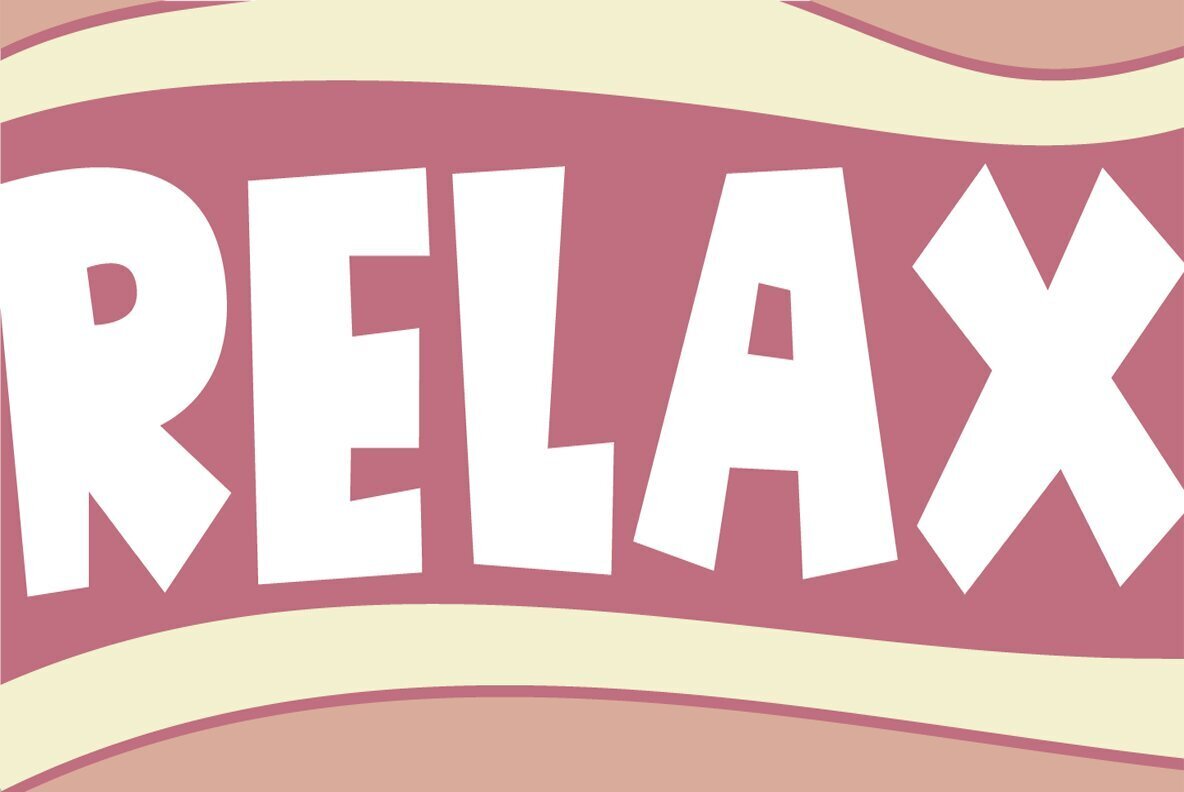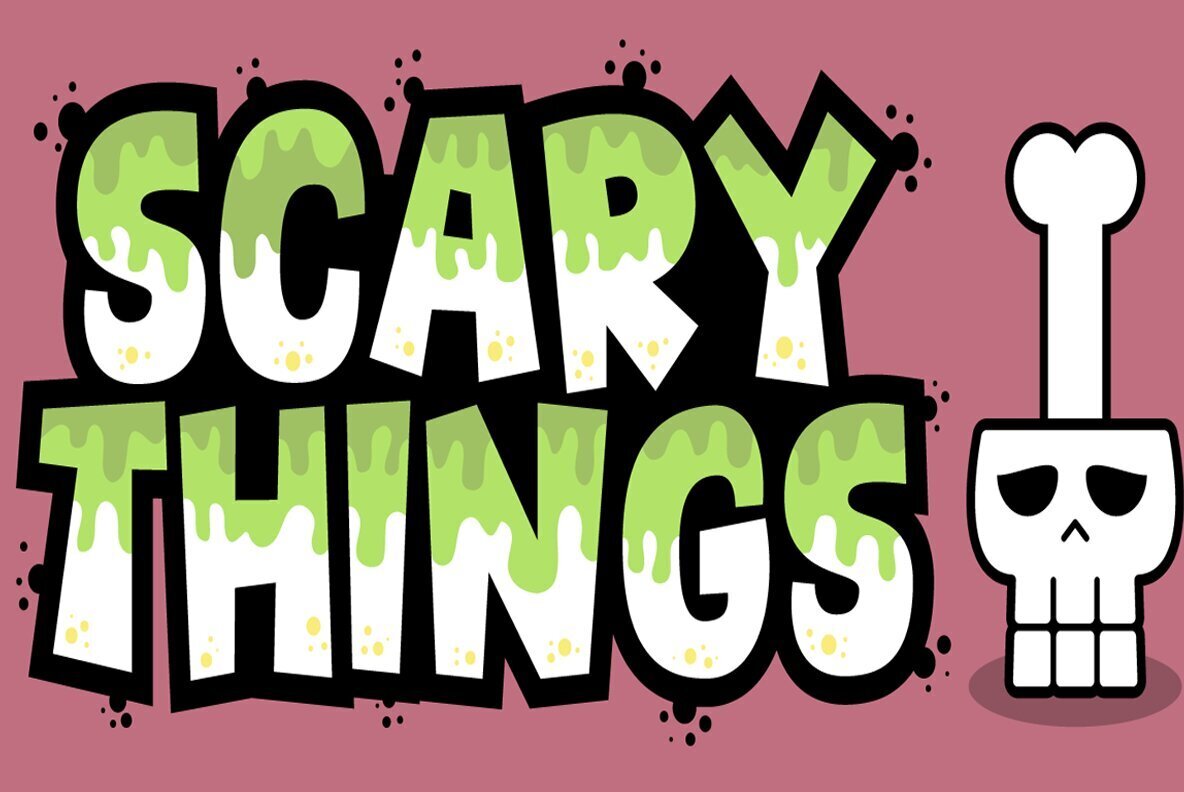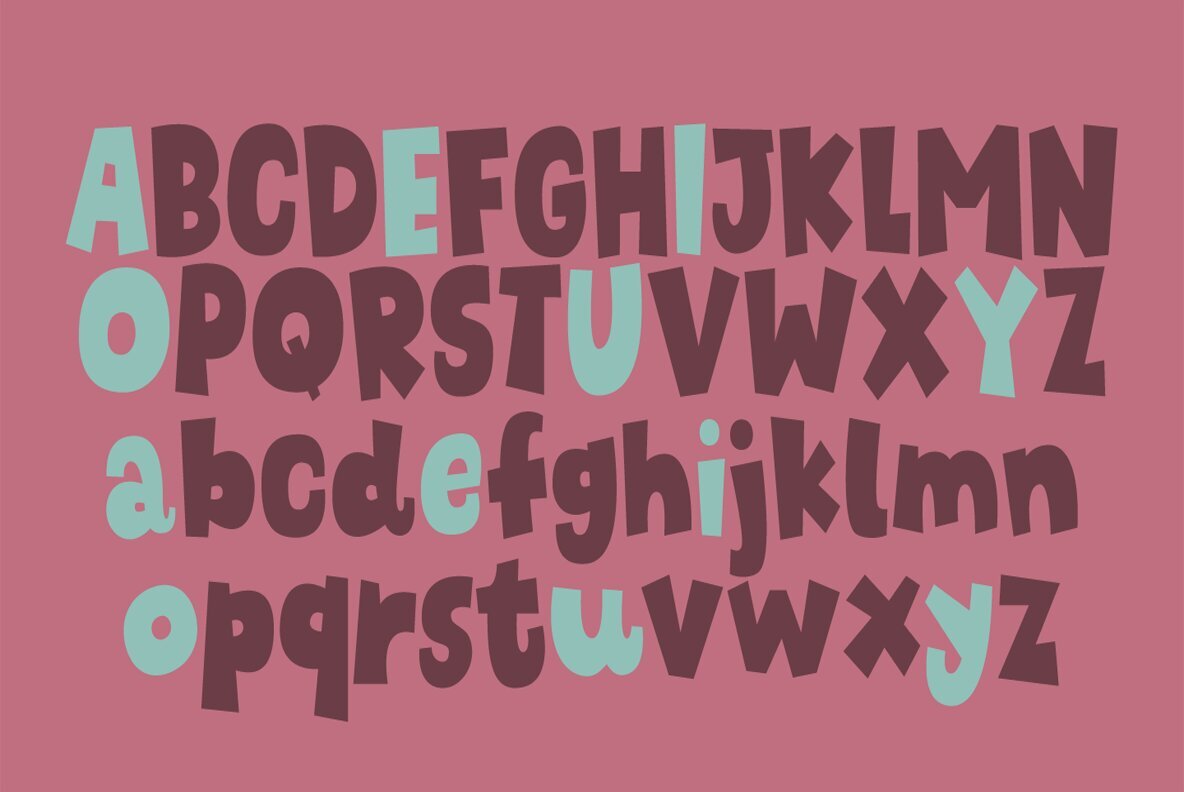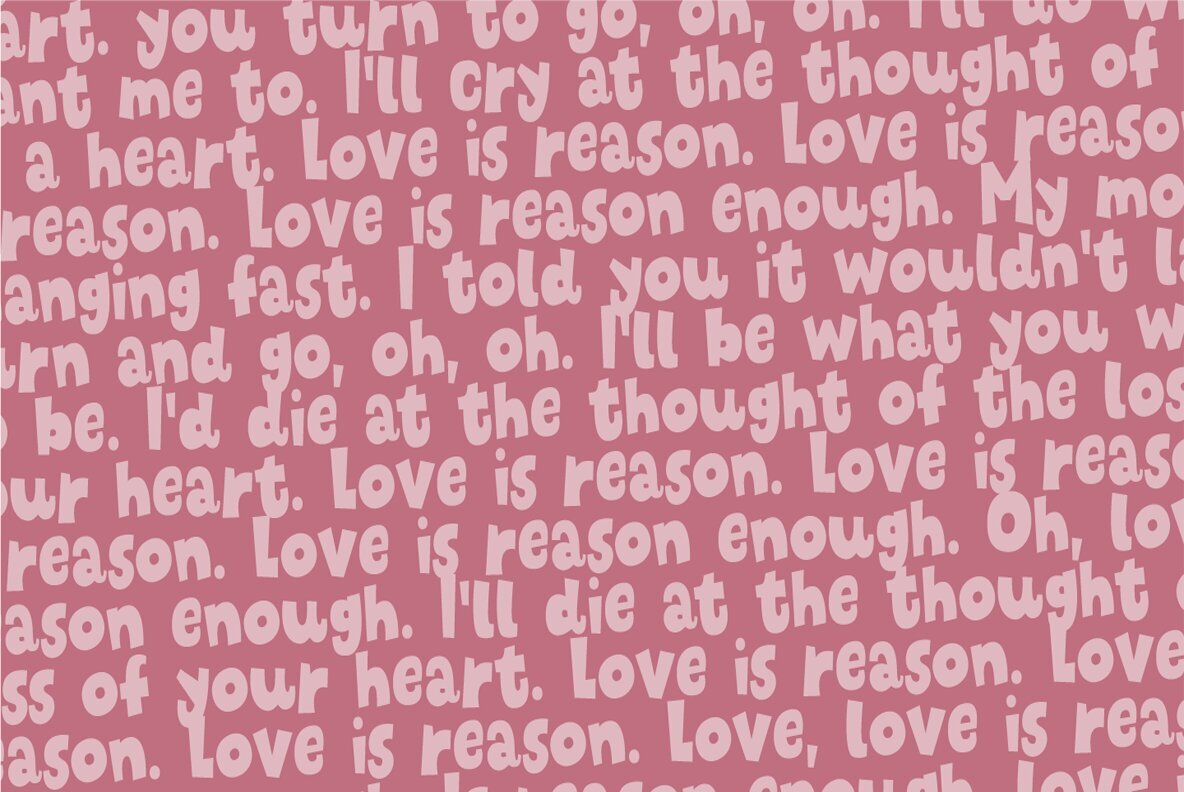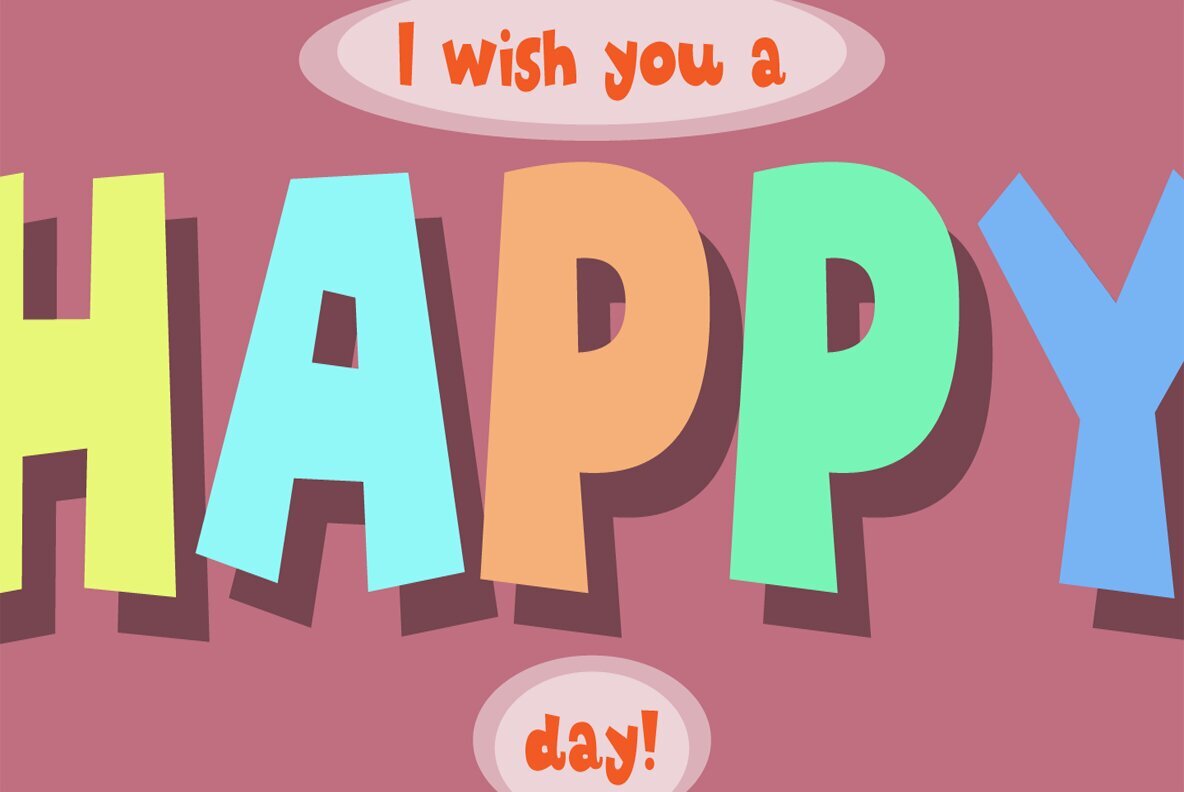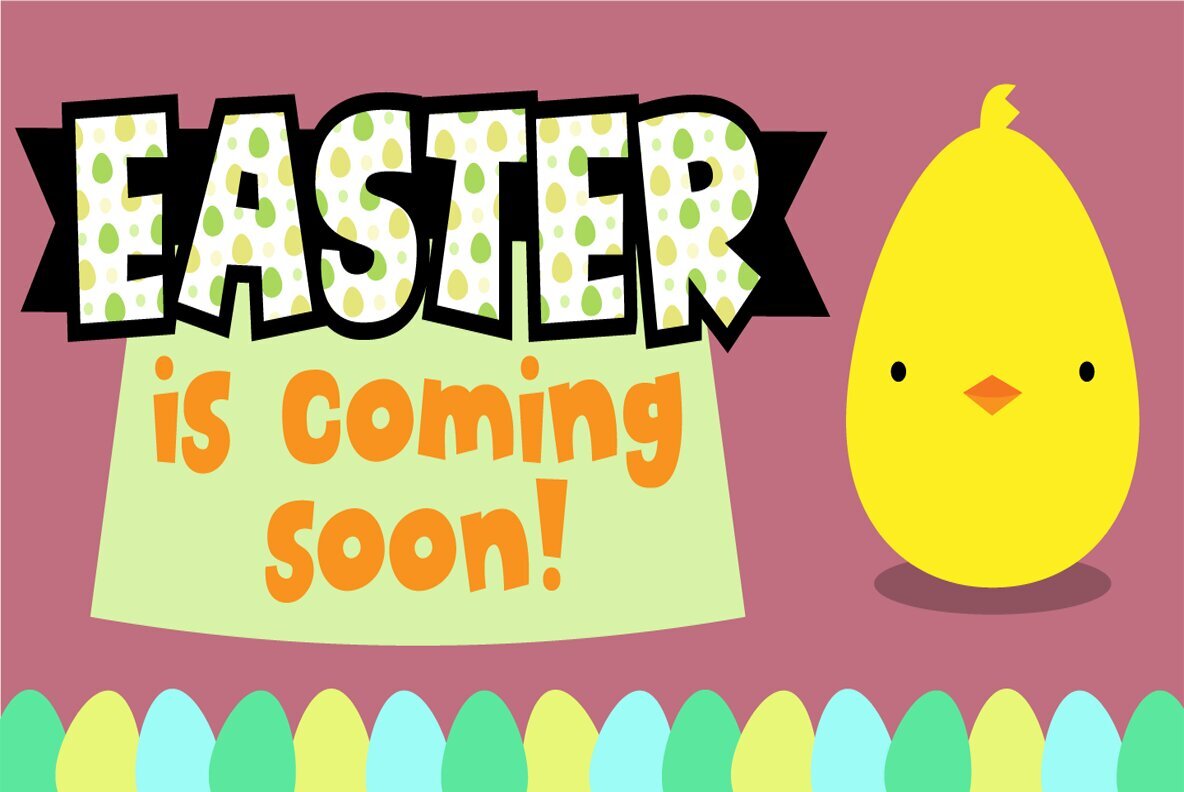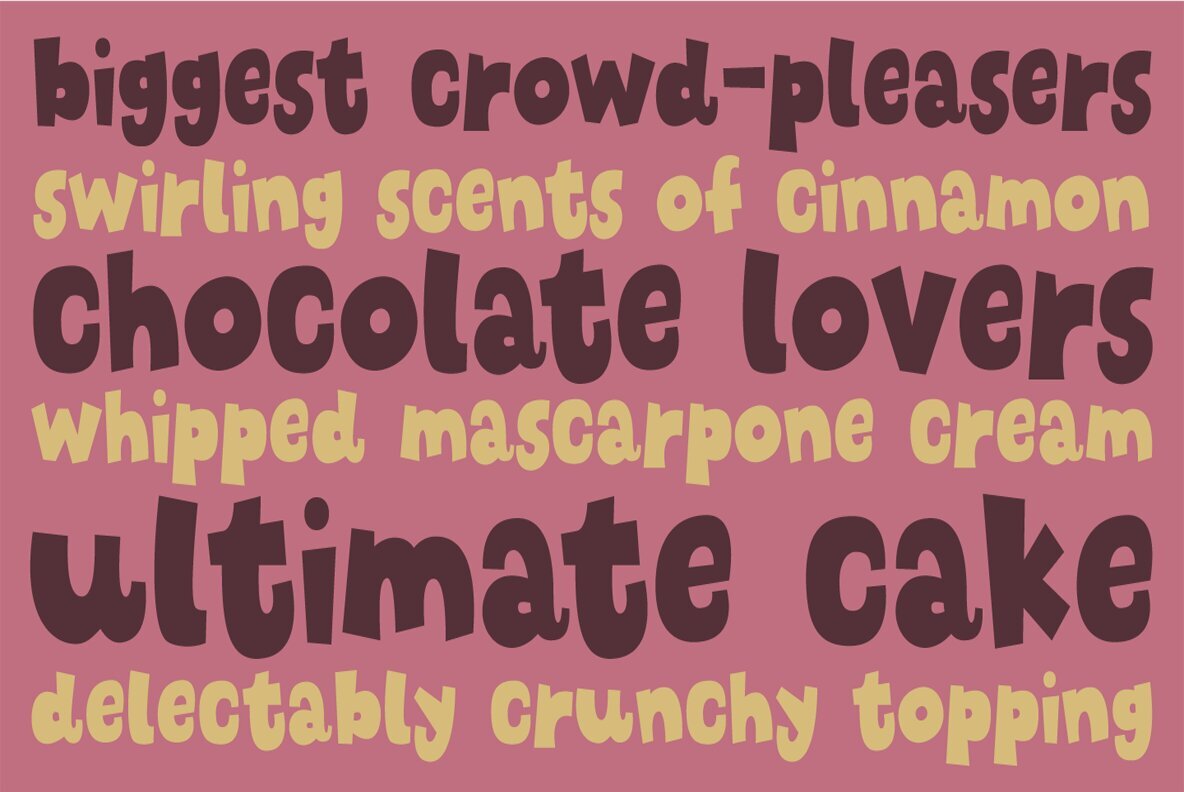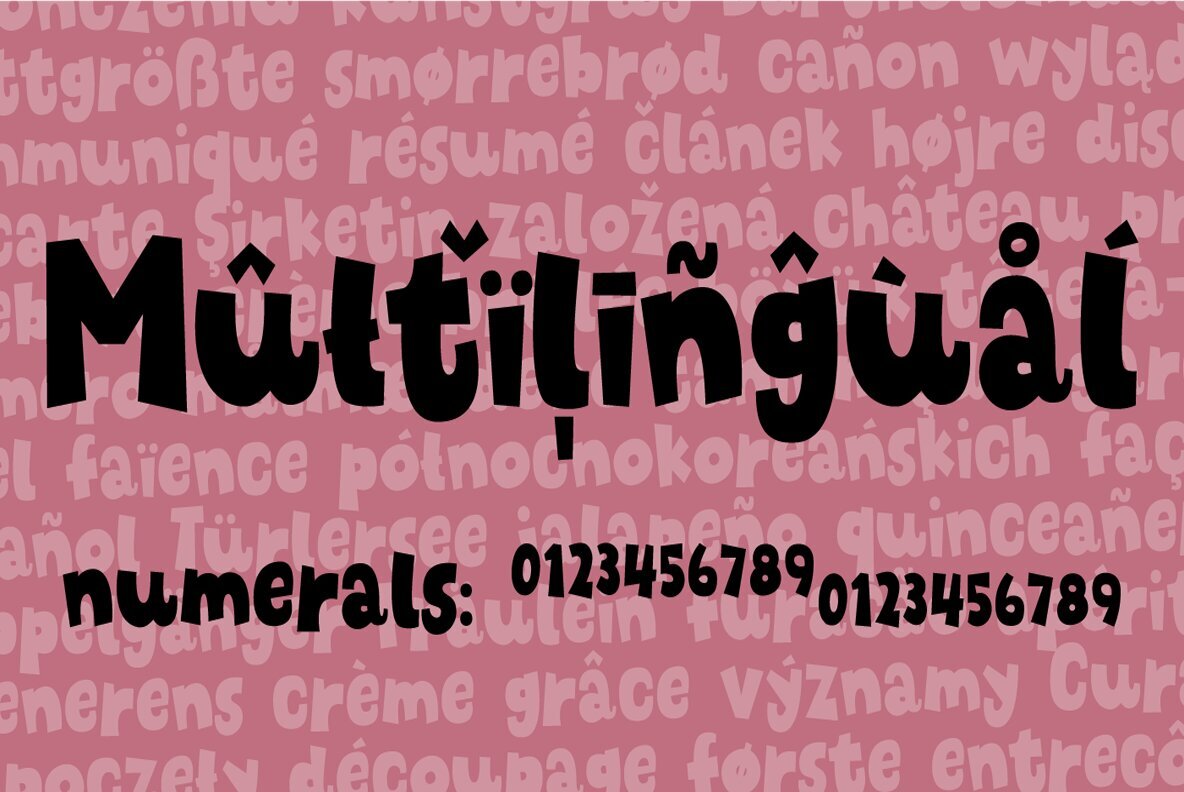
Chunky Fries Font
Chunky Fries is my incredibly smooth and handsome comic font! Charming and delightful without overdoing it, and useful for most occasions, but mostly for something that needs a sparkle of funky business!